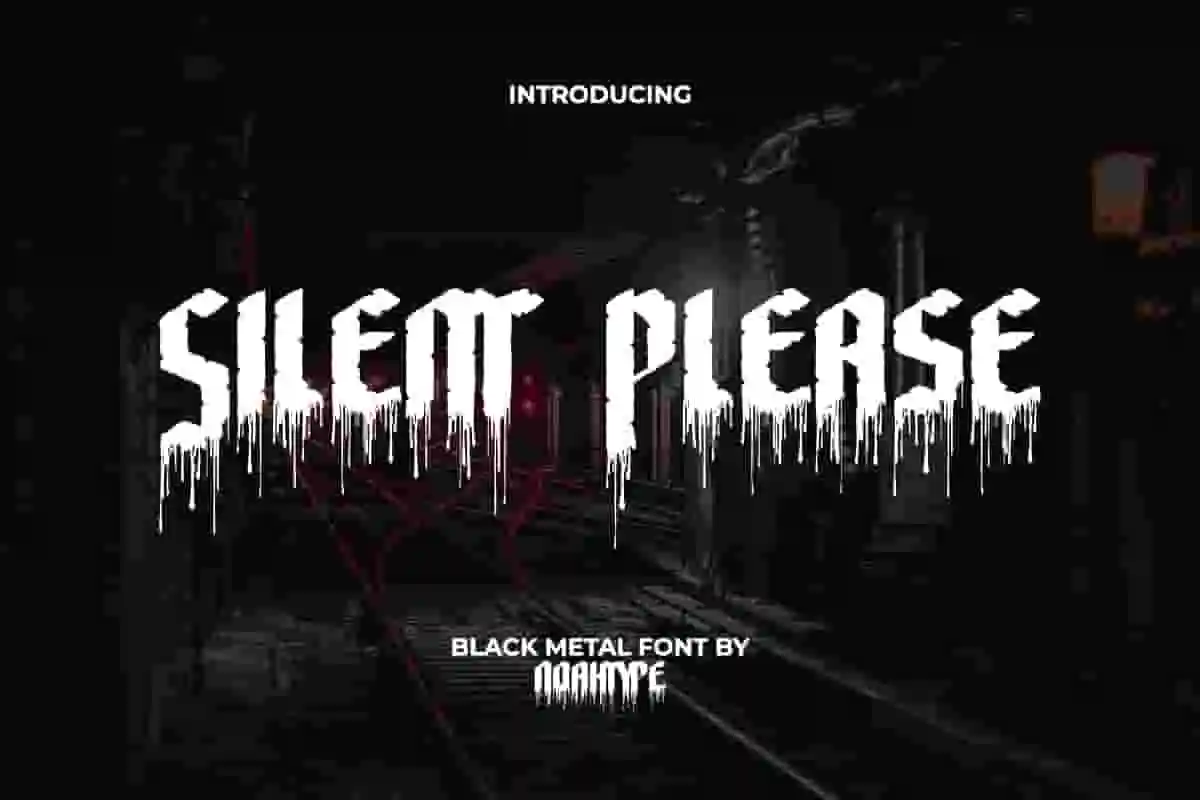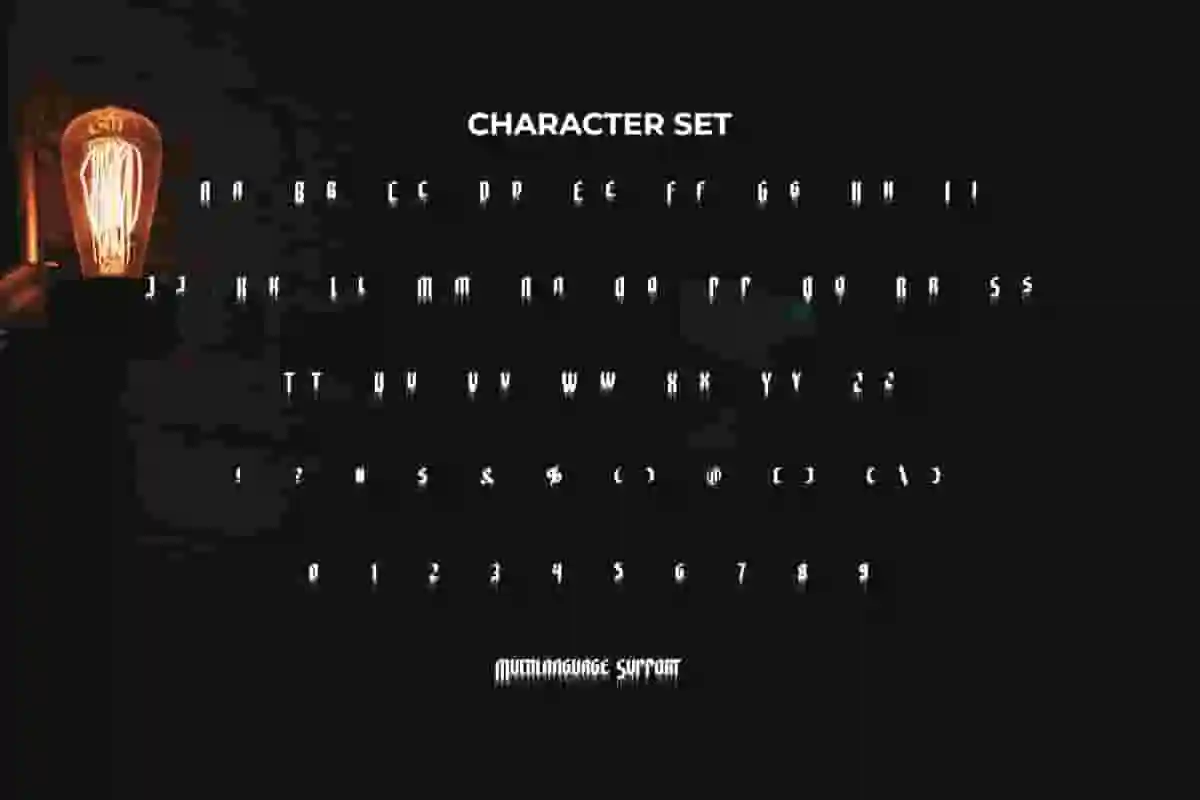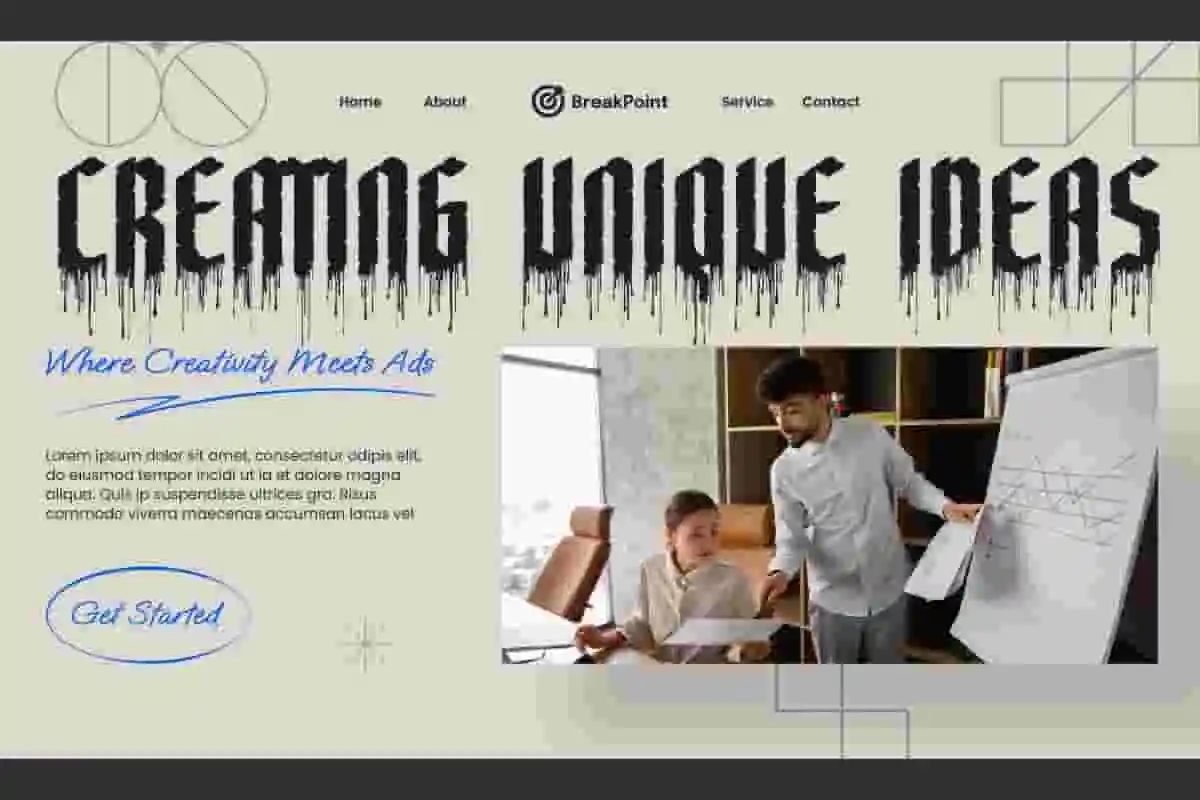
Silent Please Font is a black metal font with horror theme that has a creepy feel created by NoahType. This font has a rough texture with the addition of liquid like paint dripping at the bottom of the letters. It will be perfect for any designs, such as brand image, cover, custom design, invitation, label, marketing material, menu, poster, printing, product packaging, quotes, signage, website, and many more!
Silent Please Font includes full set of ALL CAPS for Uppercase and Lowercase Basic Characters, Numerals, Punctuation, and Symbol. This font will make your design amazing and also a perfect choice for many industries, such as game, movie, music, accessories, advertising, art, café, event or festival, fashion, printing, publishing, etc.